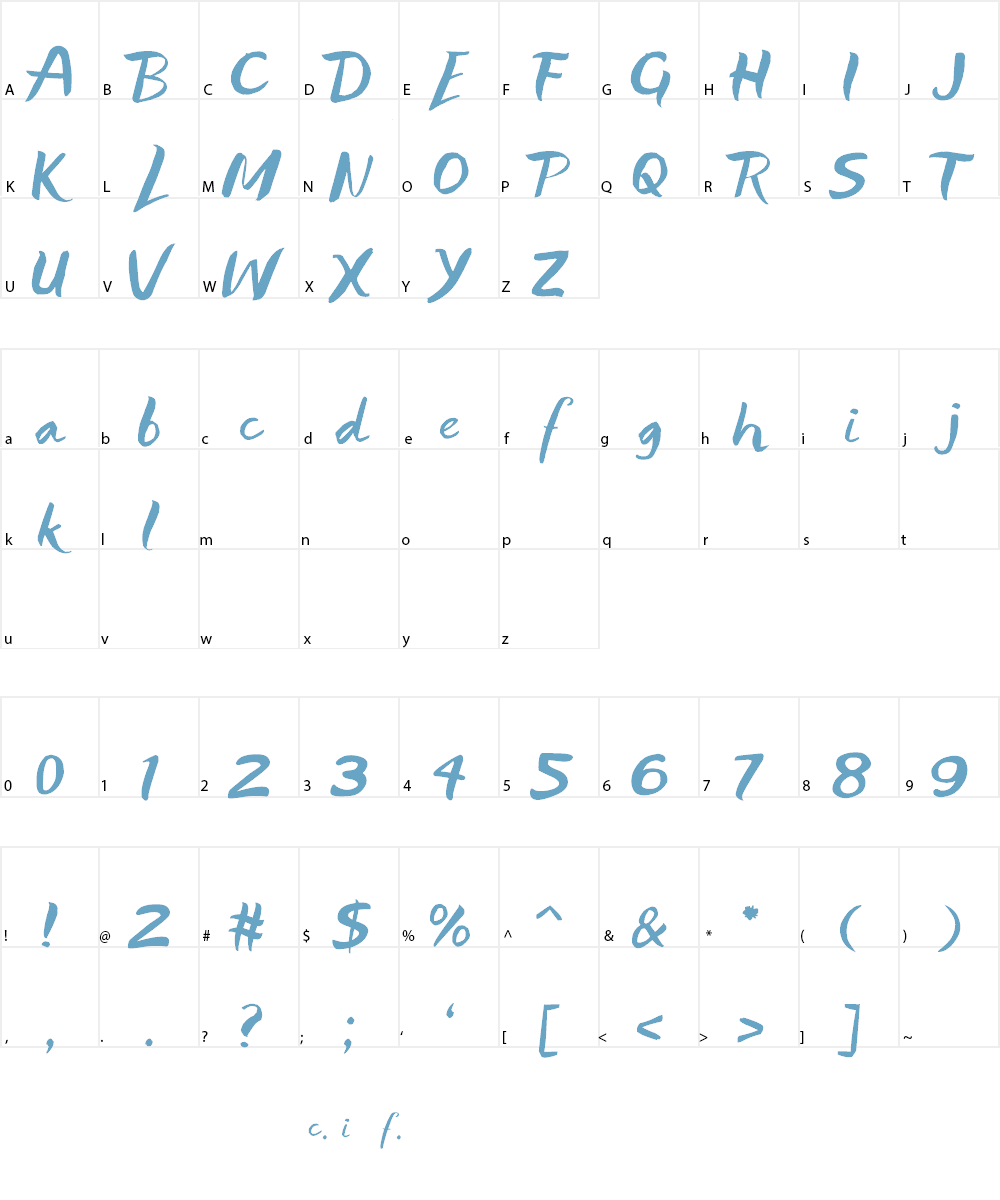
This font is based on a logos Lifetime, Movie Network & Real Woman. And it has new characters Latin-Extended-A, Latin-Extended-B, Latin-Extended-Additional, and more!